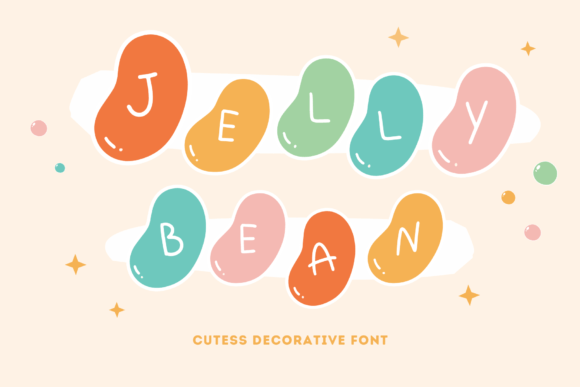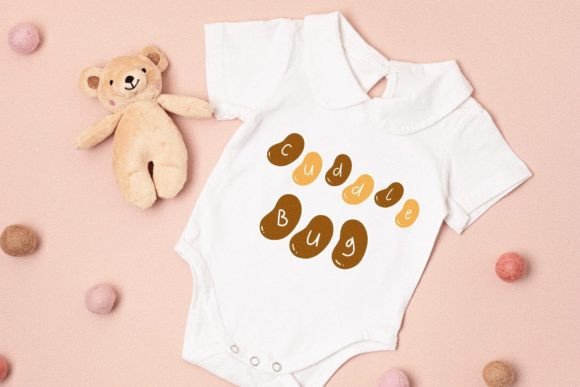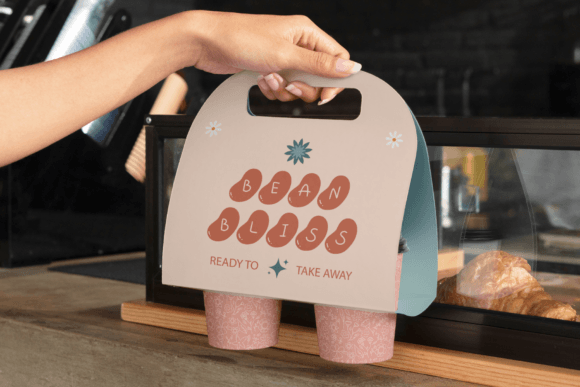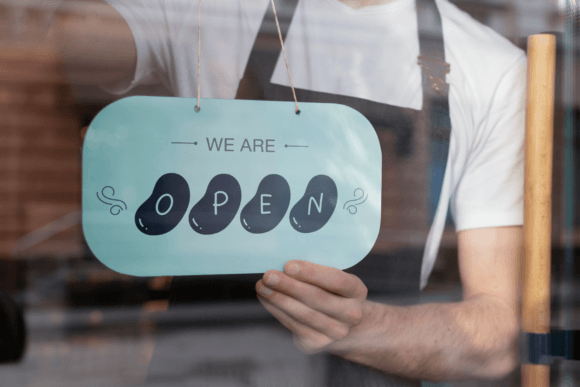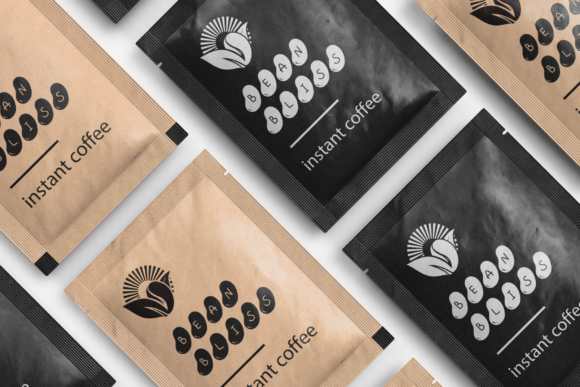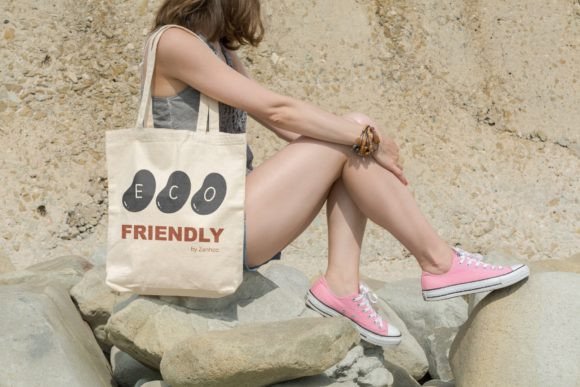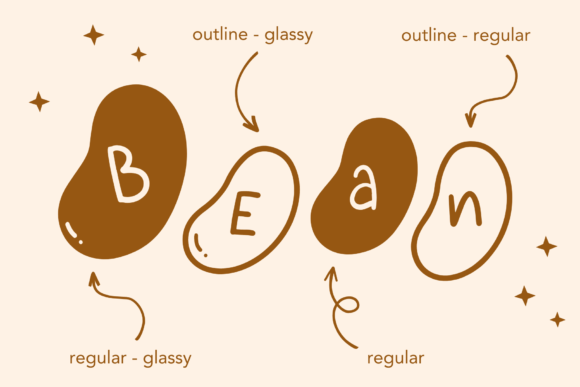
Get Ready to Sweeten Up Your Design with the Jelly Bean Font
Have you ever been stuck on a design project, scrolling through font options, and suddenly stumbled upon a font that makes you go ‘A-ha!’? That’s exactly what happened to me when I discovered the Jelly Bean Font. Its whimsical charm and playful vibe instantly sparked a creative moment that left me excited to dive in and explore its possibilities.
So, what’s behind the magic of the Jelly Bean Font? This adorable decorative font is not only cute and eye-catching but also incredibly versatile, making it a valuable addition to any designer’s toolkit. Whether you’re working on product branding, creating a display headline, or designing packaging for your latest project, the Jelly Bean Font is sure to bring a smile to your work.
Jelly Bean Font Key Features
- Font Family: Jelly Bean Font is a sans-serif font family, designed for digital use.
- Unique Characteristics: Features a unique, rounded sans-serif design with a friendly and approachable feel.
Jelly Bean Font Review
Overall, I found the Jelly Bean Font to be a visually appealing and quirky choice for designers. ✨ The unique letterforms and playful personality make it a great fit for projects that need a touch of whimsy.
Here are some aspects where the Jelly Bean Font excels:
- ✨ Uniqueness: The font’s eclectic design makes it stand out from more traditional sans-serif fonts.
- ✨ Versatility: It works well in both digital and print applications, from logos to advertising materials.
- ✨ Customization: The font is highly customizable, allowing designers to tweak the style to suit their specific needs.
- ⚠️ Readability: The font’s unusual design can make it difficult to read, especially at smaller sizes or in large blocks of text.
- ⚠️ Limitations in certain languages: The font may not be optimized for languages that require more complex character sets.
- ⚠️ Compatibility issues: Some designers have reported issues with the font’s compatibility in certain software or operating systems.
Overall, the Jelly Bean Font is a fun and creative choice for designers who want to add a touch of personality to their projects. While it may not be the best choice for every project, it’s a great option for those who need a unique and eye-catching font.
Tips for Getting the Most Out of Jelly Bean Font
To get the most out of the Jelly Bean font, try using it in bold or italic styles to add emphasis to your text. You can also use it in combination with other fonts to create a unique and eye-catching design.
The Jelly Bean font is perfect for:
- Fun and playful social media graphics.
Alternatives to Jelly Bean Font for Designers
Pacifico is a beautiful, elegant script font that is perfect for creating a sense of luxury and sophistication. It is ideal for use in branding, advertising, and packaging design. Pacifico has a more refined and polished look compared to Jelly Bean Font, making it suitable for high-end designs.
Comparison: Pacifico has a more elegant and refined look compared to Jelly Bean Font, making it suitable for high-end designs. Pacifico is also more versatile and can be used in a variety of settings, from formal to casual.
Great Vibes is a modern, elegant script font that is perfect for creating a sense of fun and playfulness. It is ideal for use in branding, advertising, and packaging design. Great Vibes has a more dynamic and energetic look compared to Jelly Bean Font, making it suitable for youthful and vibrant designs.
Comparison: Great Vibes has a more dynamic and energetic look compared to Jelly Bean Font, making it suitable for youthful and vibrant designs. Great Vibes is also more suitable for digital designs, such as social media and website design.
Carolyna Pro is a modern, elegant script font that is perfect for creating a sense of sophistication and elegance. It is ideal for use in branding, advertising, and packaging design. Carolyna Pro has a more refined and polished look compared to Jelly Bean Font, making it suitable for high-end designs.
Comparison: Carolyna Pro has a more refined and polished look compared to Jelly Bean Font, making it suitable for high-end designs. Carolyna Pro is also more versatile and can be used in a variety of settings, from formal to casual.
Q: Are there any alternatives to the Jelly Bean Font?
Q: Can I customize the Jelly Bean Font to suit my needs?